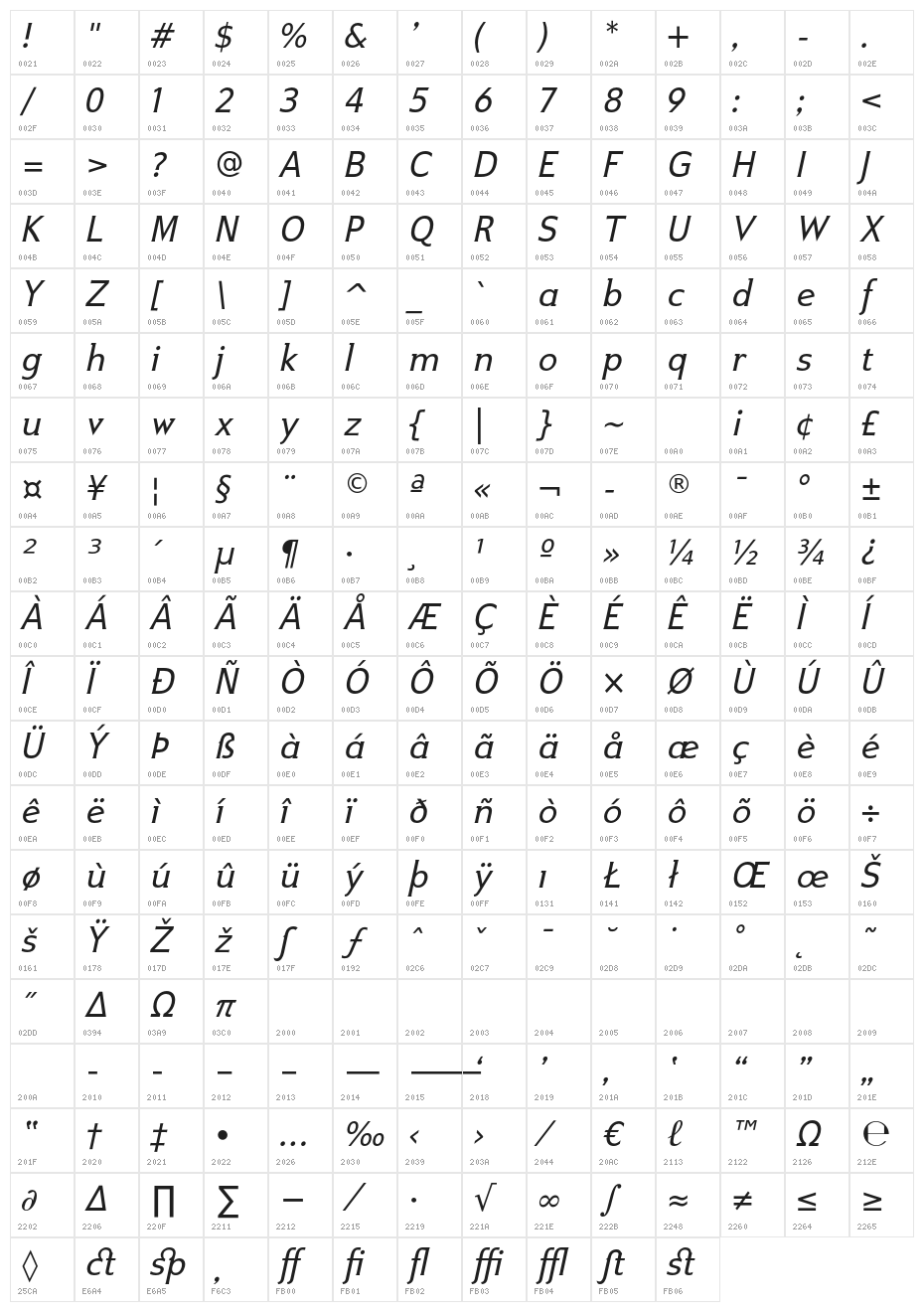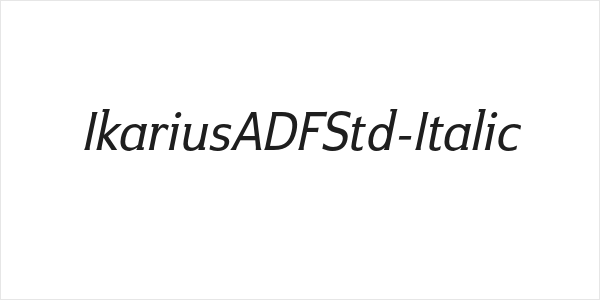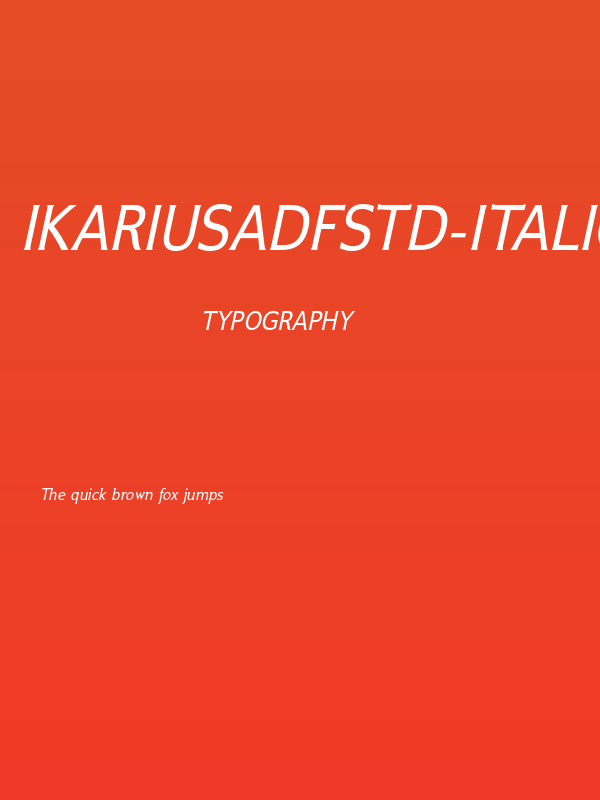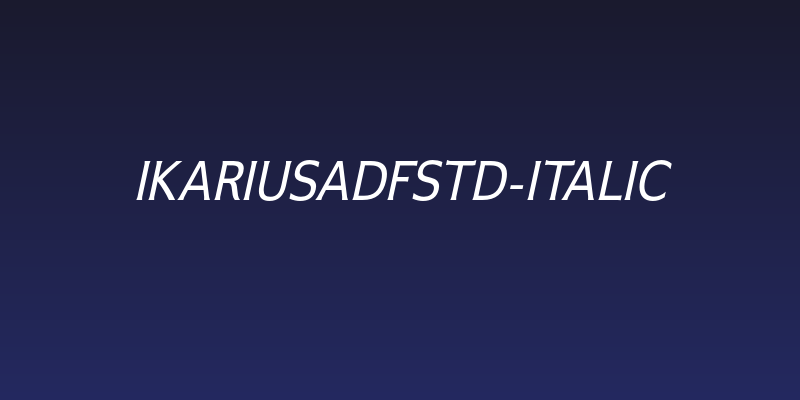
IkariusADFStd-Italic Font
IkariusADFStd-Italic Description
This font features a sleek, italicized design with a modern and professional appearance. The characters are slightly slanted, adding a dynamic and fluid feel to the text. The strokes are consistent in thickness, providing a medium contrast that enhances readability while maintaining an elegant look. The spacing between characters is normal, ensuring clarity and legibility across various sizes. This typeface is versatile, suitable for both digital and print media, and can be used effectively in a variety of contexts.